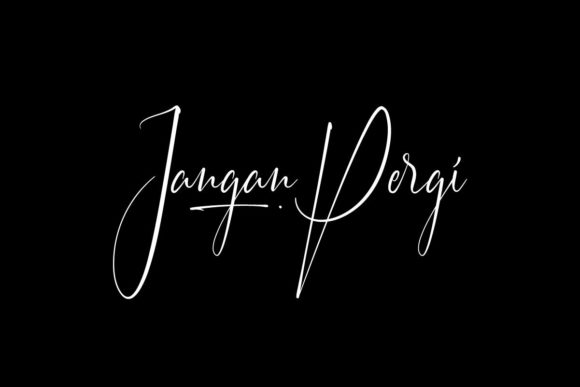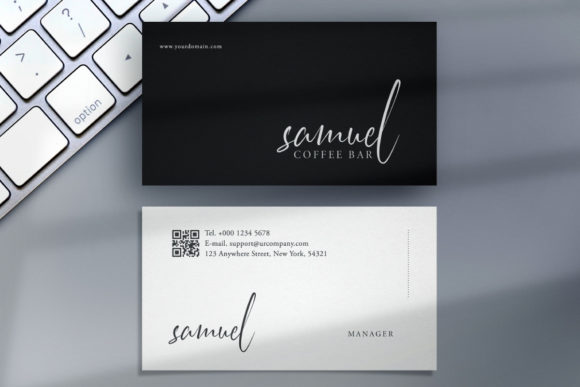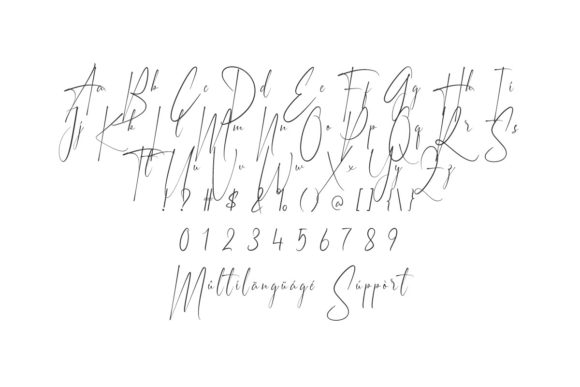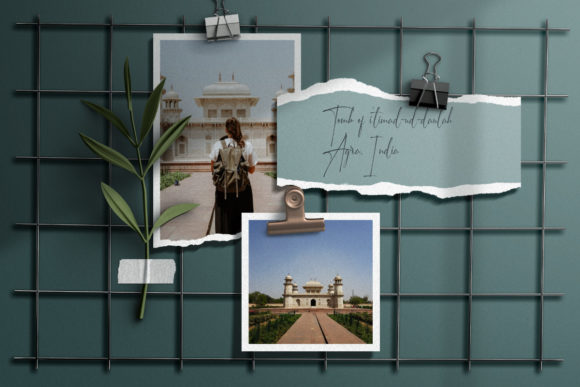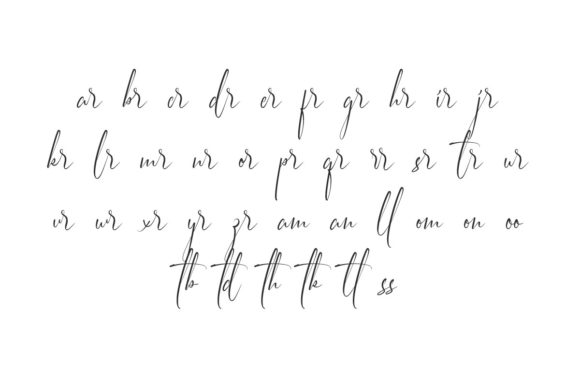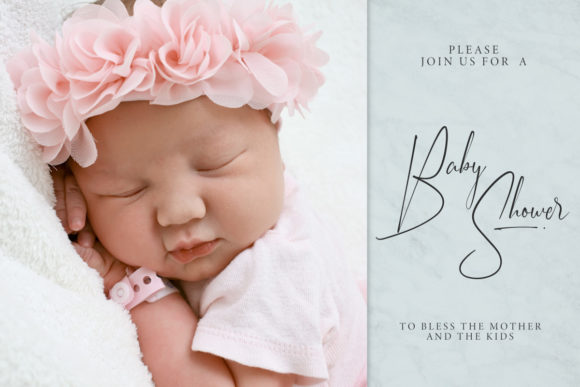
Unleash Your Creativity with Jangan Pergi Font
Have you ever found yourself staring at a blank canvas, unsure of where to begin? The spark of inspiration is there, but it’s waiting for the perfect catalyst to set it ablaze. For many creatives, the right font can be that elusive trigger. That’s where Jangan Pergi Font comes in – a free-flowing handwritten font that embodies a sweet touch, making it the perfect companion for your newest projects.
With its PUA encoding, accessing all the glyphs and swashes is a breeze, allowing you to unlock the full potential of this charming font. Whether you’re designing a wedding invitation, a children’s book, or a social media campaign, Jangan Pergi Font is an invaluable asset in your design toolkit. Its unique character and versatility make it an ideal choice for designers looking to add a personal touch to their work.
Jangan Pergi Font Key Features
- Unique Characteristics: The font features a distinctive, modern design with a mix of geometric and organic elements.
Jangan Pergi Font Review
Overall, I’m impressed with “Jangan Pergi Font”. This font has some unique features that make it stand out from the rest. ✨ Its quirky, handwritten style is perfect for creating a fun and casual atmosphere. The font is also highly legible, making it suitable for body text as well as headings.
One of the things I appreciate about “Jangan Pergi Font” is its wide range of weights. From Light to Bold, this font has a weight to suit every design need. Additionally, the font includes a variety of language support, making it a great choice for multilingual designs. ✨
While “Jangan Pergi Font” is a great font, there are some limitations to consider. ⚠️ The font may not be suitable for formal or professional designs, as its playful style may not be taken seriously. Additionally, the font may not be as versatile as some other fonts, as its handwritten style can be limiting in certain design contexts.
- Limited formal or professional use
- Not as versatile as other fonts
Overall, I’m a big fan of “Jangan Pergi Font”. While it may have some limitations, its unique style and wide range of weights make it a great choice for a variety of design projects. I would definitely recommend this font to designers looking for a fun and casual font option.
Jangan Pergi Font Practical Application Guide
Jangan Pergi Font is commonly used for creating unique and eye-catching designs, such as:
– Blog posts
– Infographics
– Branding materials
Alternatives to Jangan Pergi Font for Designers1. Ruda Font
Ruda Font is a sans-serif typeface designed by Rasmus Andersson. It’s a versatile font suitable for various design projects, including digital and print media. Ruda Font is ideal for body text, headings, and titles. It’s a great alternative to Jangan Pergi Font for those looking for a modern, clean, and highly legible font.
Comparison to Jangan Pergi Font: Ruda Font has a more rounded and friendly appearance compared to Jangan Pergi Font’s geometric and modern look. Ruda Font is also more versatile and can be used in a wider range of design contexts.
Montserrat Font is a sans-serif typeface designed by Julieta Ulanovsky. It’s a geometric font inspired by the urban landscape of Buenos Aires. Montserrat Font is perfect for digital design, advertising, and editorial projects. It’s a great alternative to Jangan Pergi Font for those looking for a modern and urban feel.